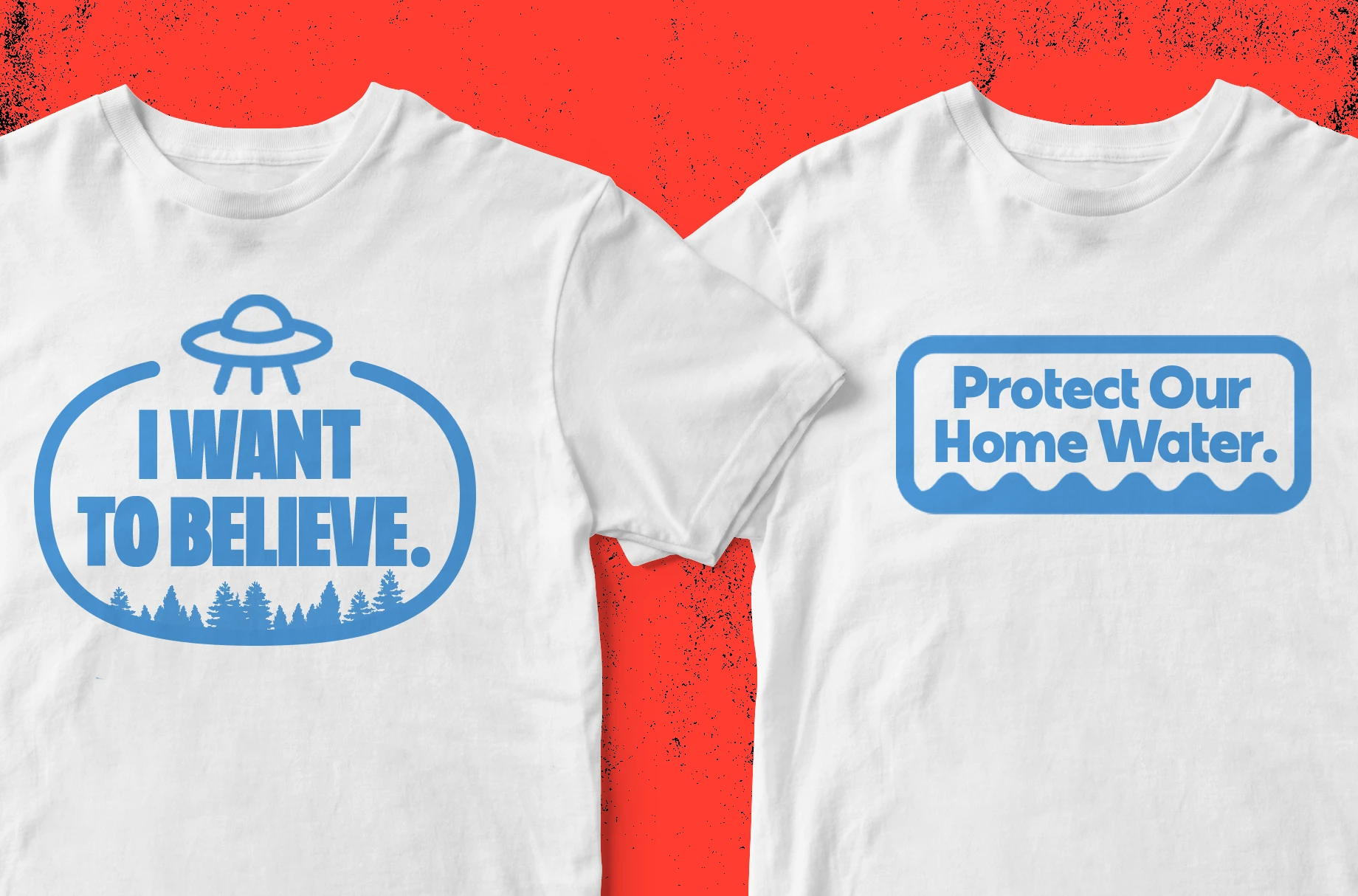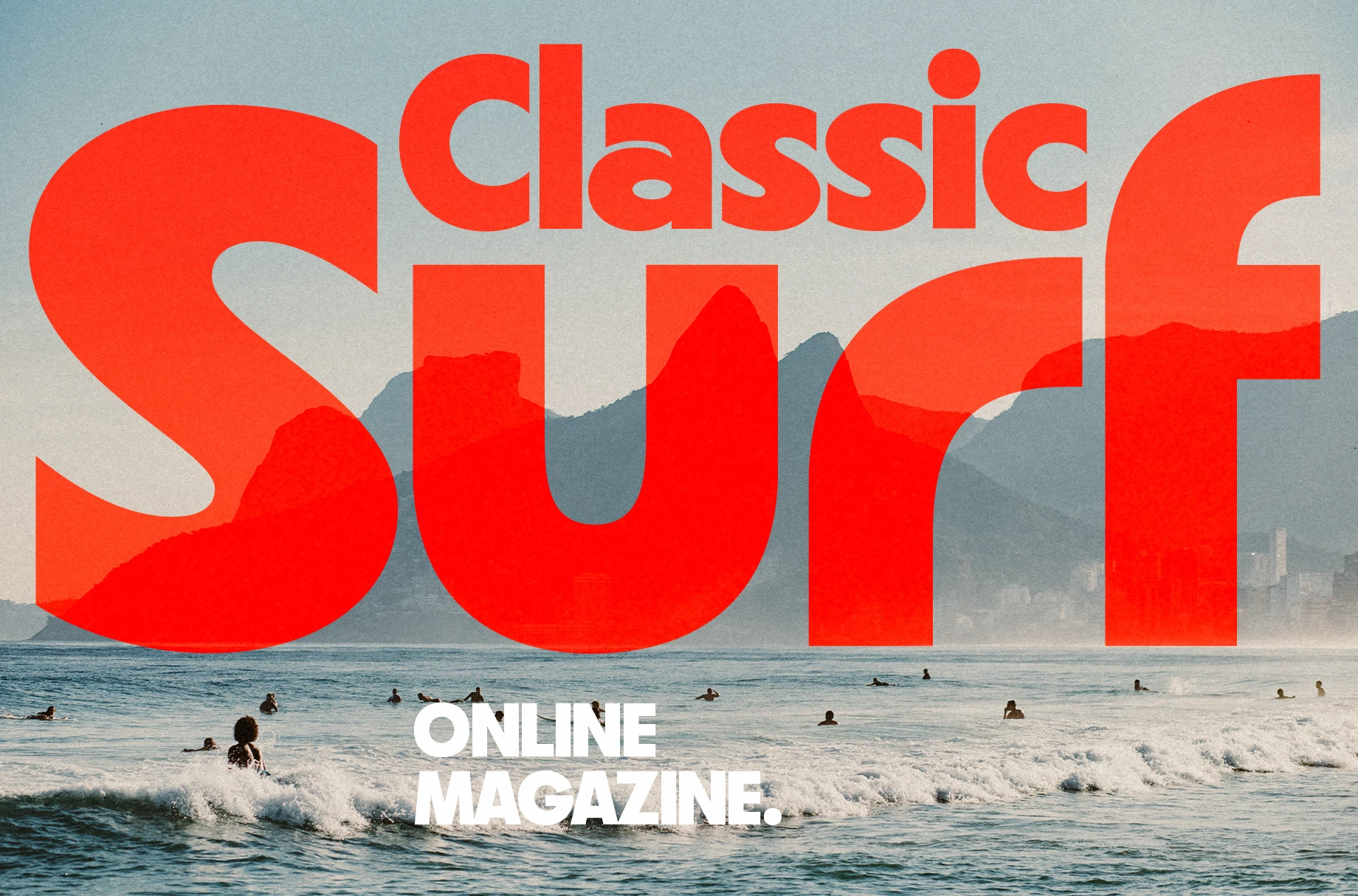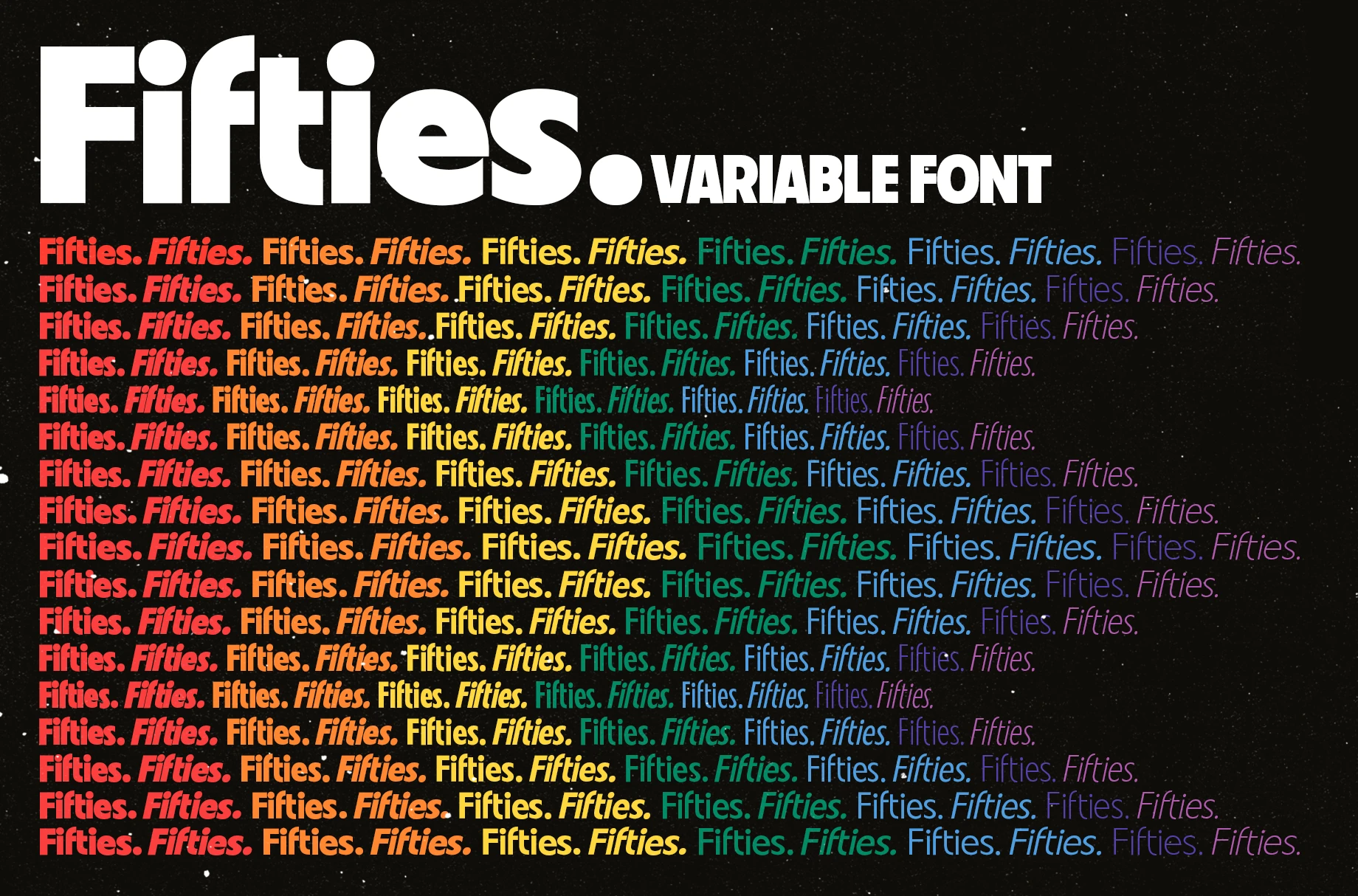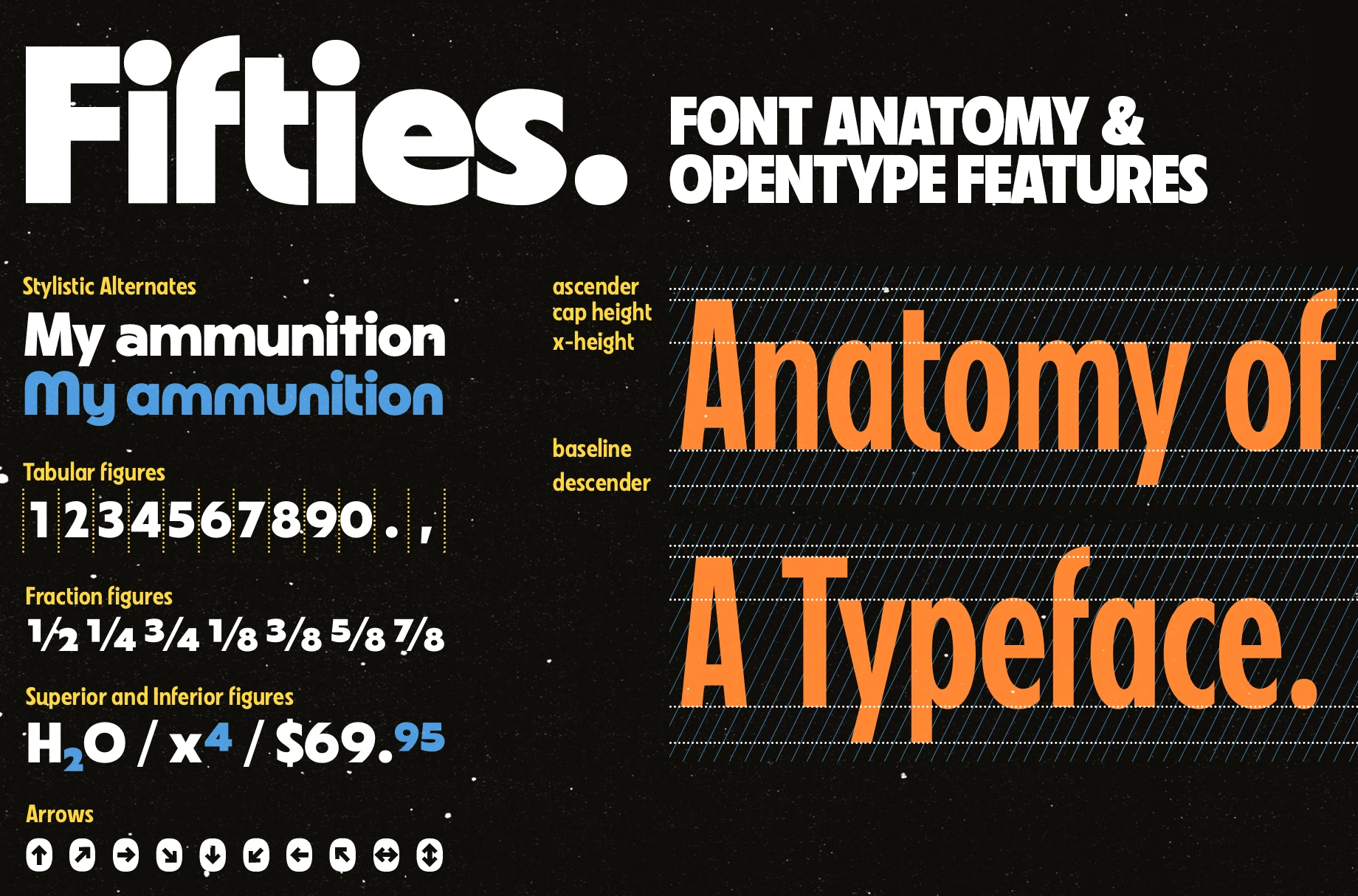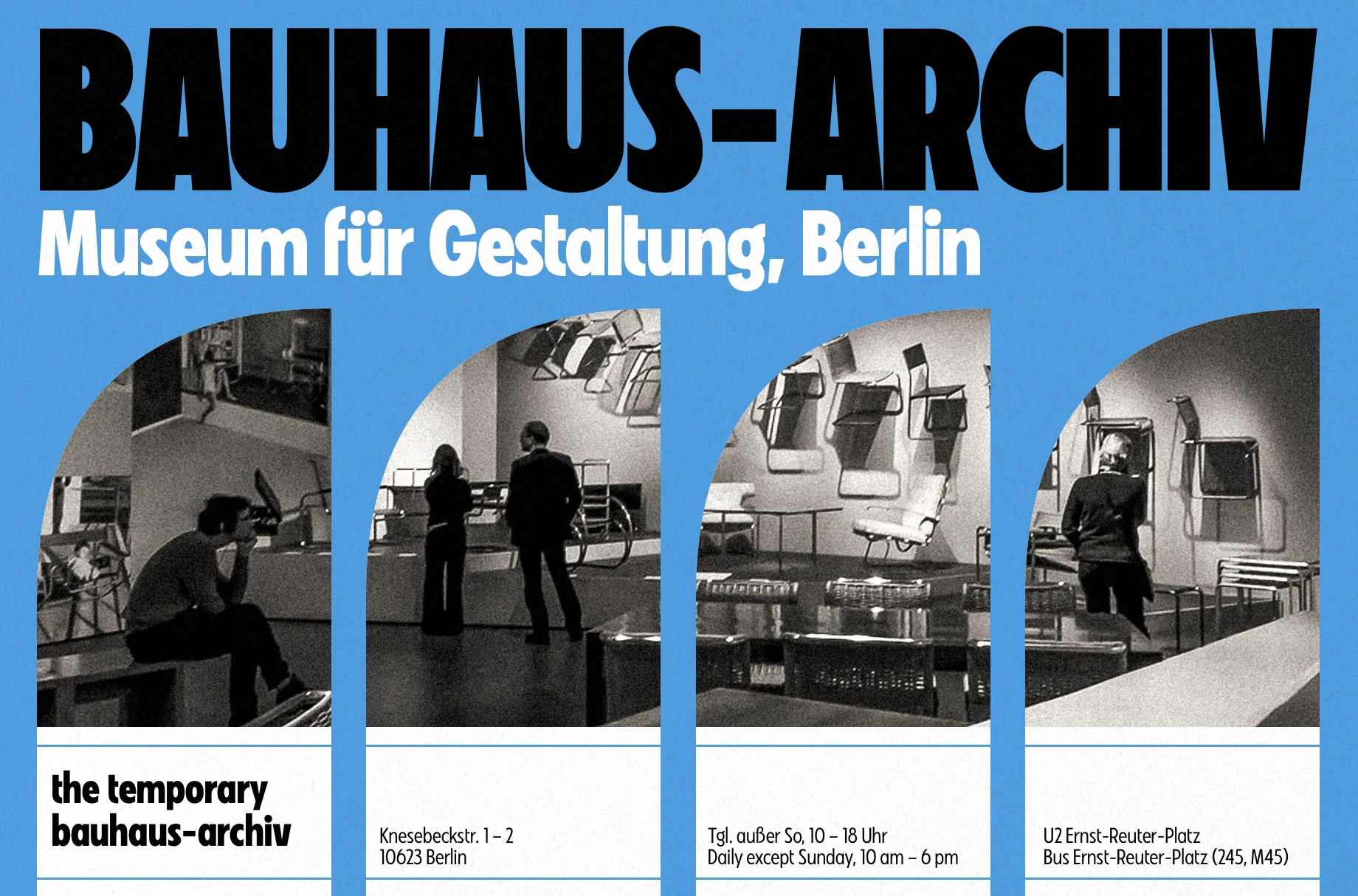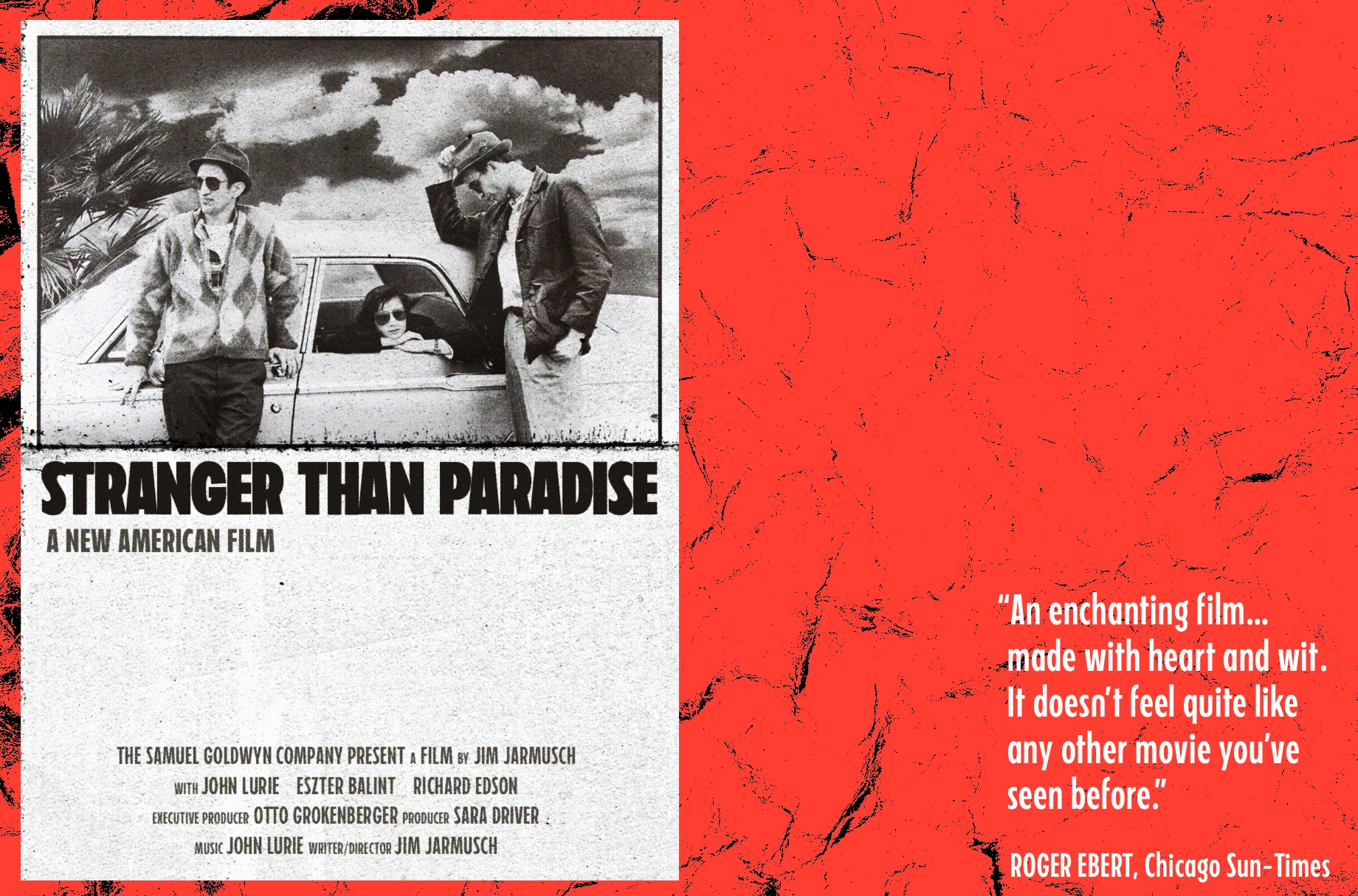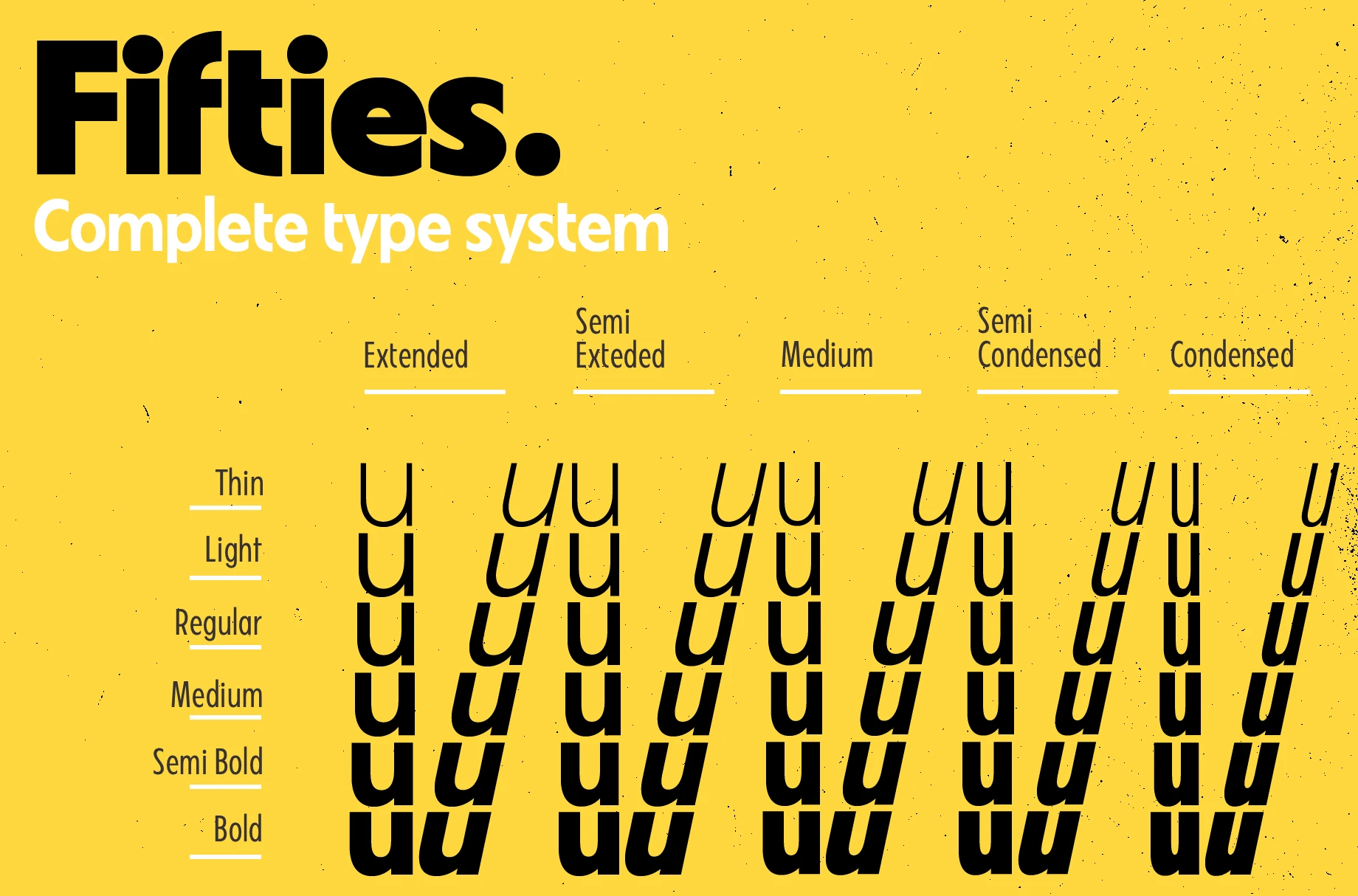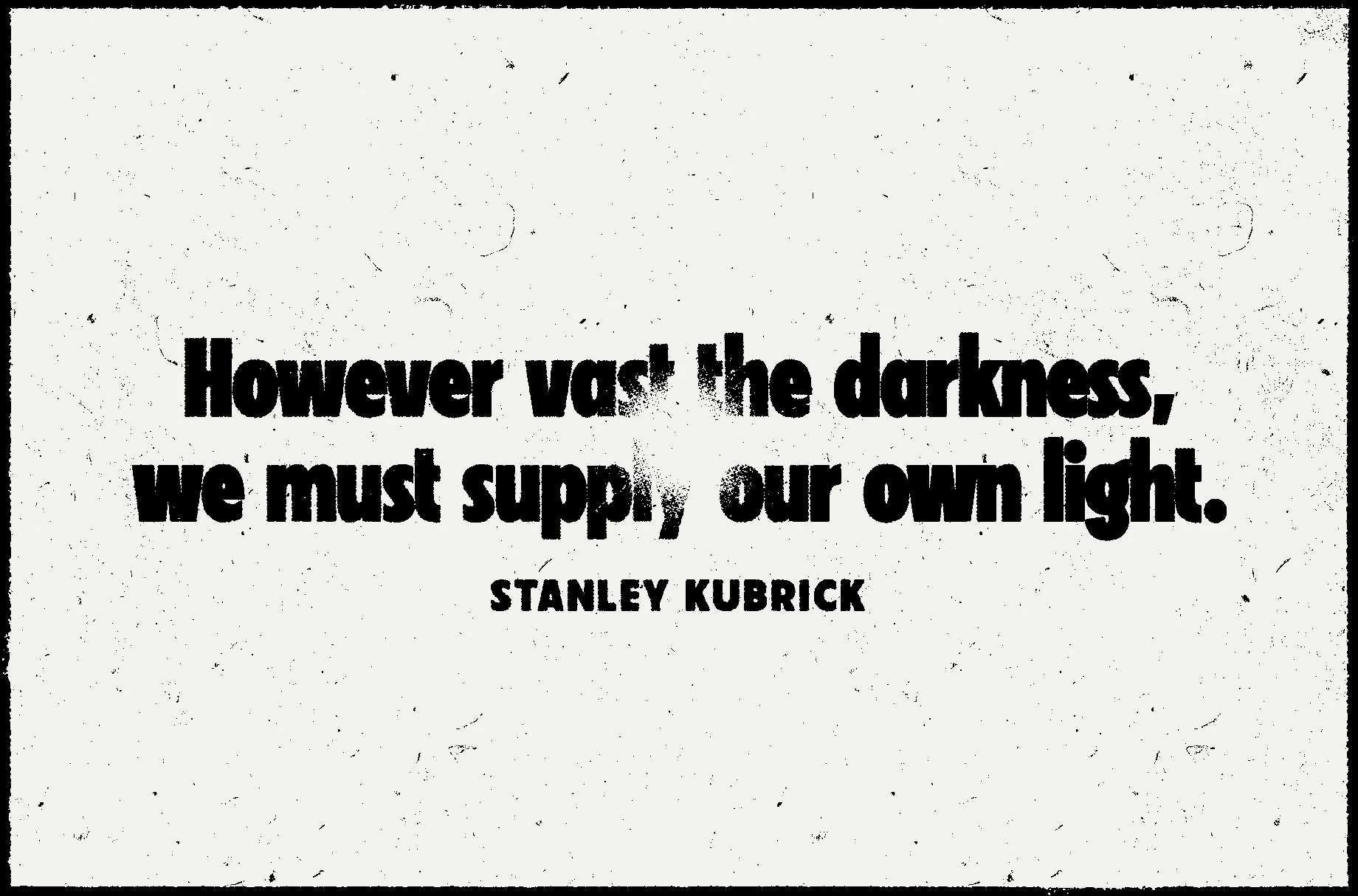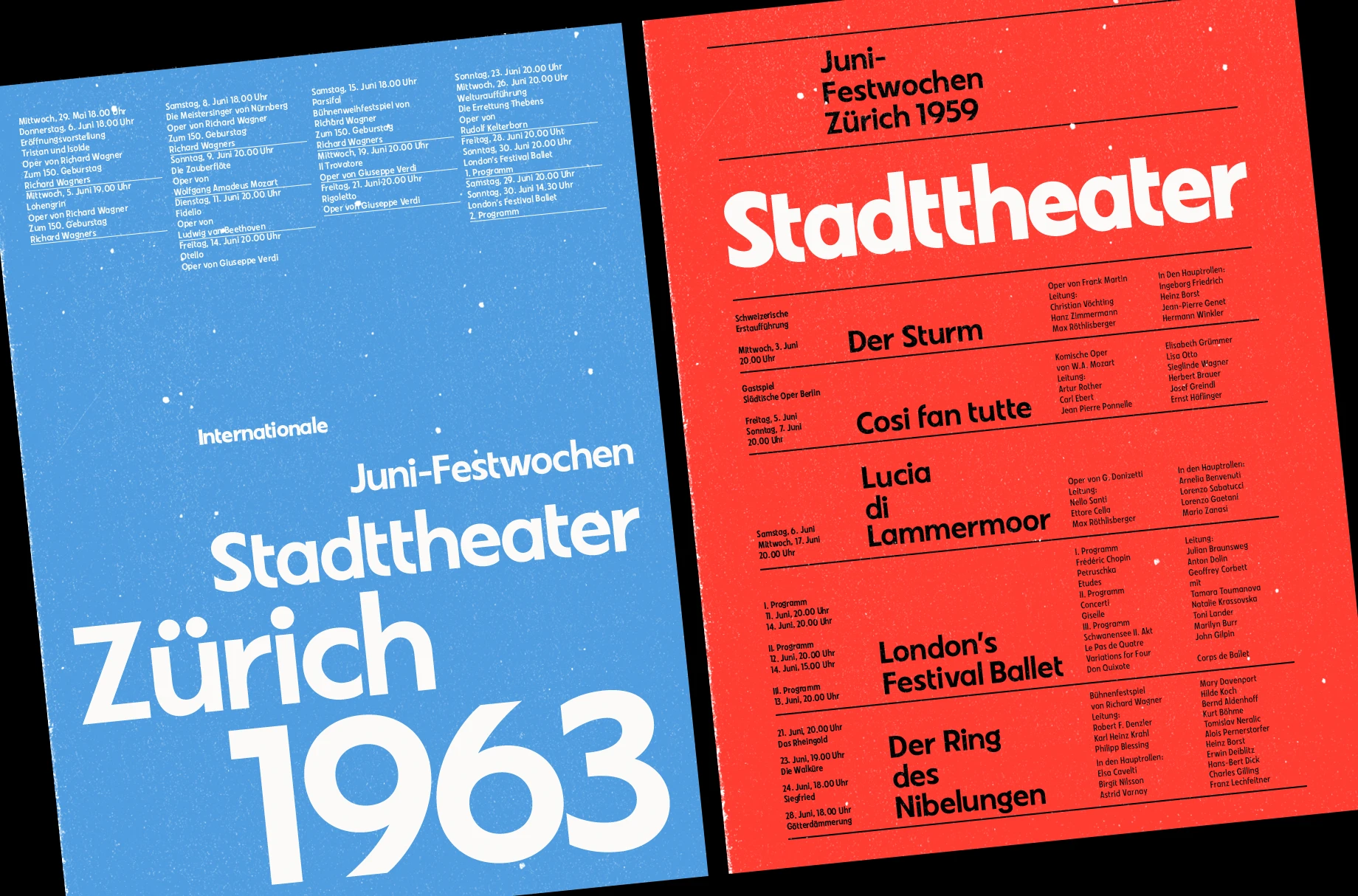
Fifties • 60 styles, 1 variable font
Fifties is a typeface blending classic geometric structure with touches of humanist grotesque. Designed to bring mid-century modernism into contemporary design. Includes 60 styles with a wide range of weights and widths, along with matching italics. Expanded Thin offers a light, elegant look; Condensed Bold delivers strong, expressive impact; Expanded Bold Italic adds sharp, dynamic energy. Ideal for theatre posters, party flyers, vintage t-shirts, web interfaces, movie titles, magazine headers, and infographics. Available as both static styles and a flexible variable font for custom control. Created for versatile, stylish typography across eras.
• Fractions
• Ordinal Numerals
• Proportional Numerals
• Stylistic Sets
• Subscript
• Superscript
• Tabular Numerals